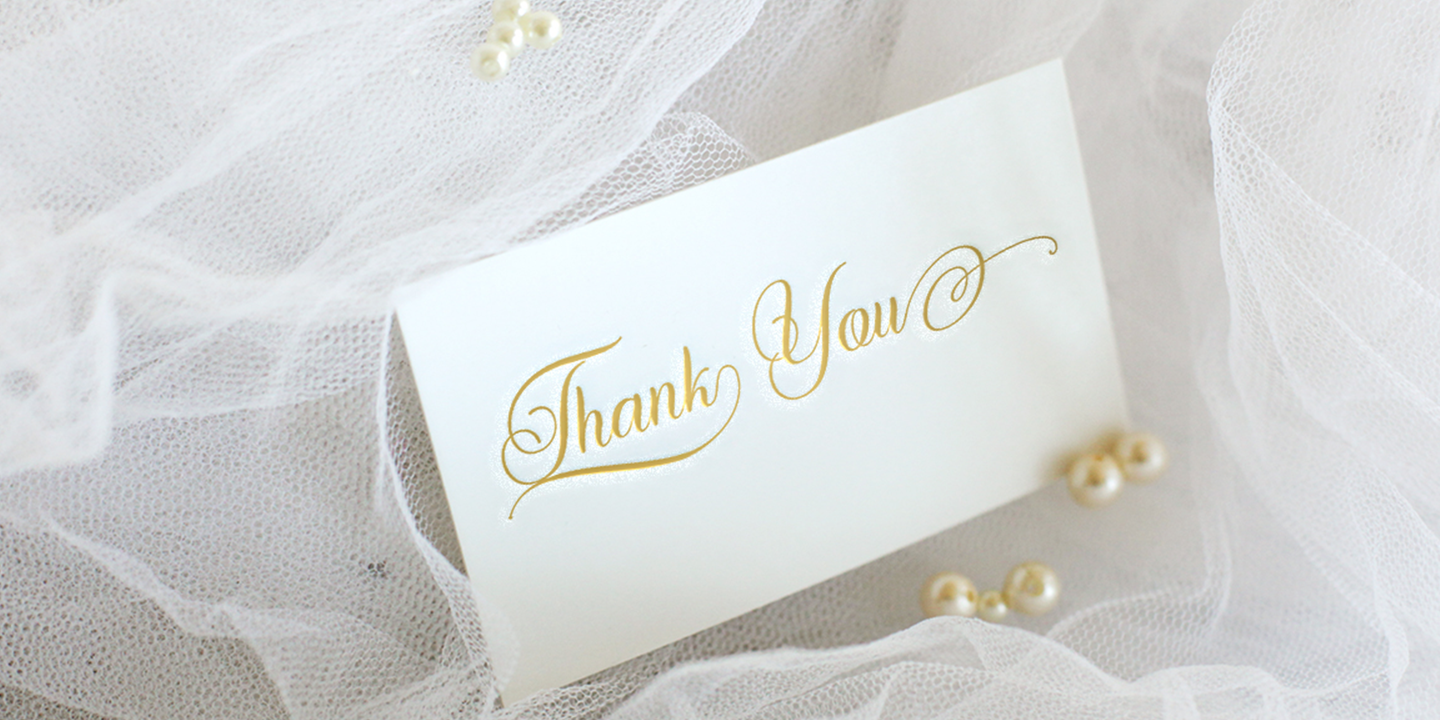
Marchanda Script Font is perfect for elegant wedding invitations, luxury brand signatures, sophisticated restaurant menus, premium packaging design, artisanal product labels, boutique logos, high-end fashion magazines, calligraphy-style greeting cards, and refined corporate branding.
What makes Marchanda Script Font exciting is its sophisticated elegance and flowing grace that perfectly captures the essence of traditional calligraphy with contemporary refinement. This exquisite typeface features fluid, connected letterforms with natural rhythm that evoke feelings of luxury, craftsmanship, and timeless sophistication. The font's handcrafted character makes it ideal for brands seeking to communicate exclusivity, personal attention, and artisanal quality through beautiful, human-centered typography.
Marchanda Script Font family includes multiple refined variations: Regular, Bold, Light, Medium, Condensed, Extended, Flourished, and Decorative versions. The family also features calligraphic alternates, elegant ligatures, decorative swashes, ornamental flourishes, and connecting elements that enhance its sophisticated appeal and typographic versatility.
Elevate your designs with Marchanda Script Font Free Download – a luxurious typography solution that brings handcrafted elegance and sophisticated beauty to every creative project. This versatile font combines calligraphic artistry with professional functionality, making it essential for designers creating premium, emotionally resonant communications that celebrate craftsmanship and refined taste.
The artistic mastery of Marchanda Script Font showcases meticulous attention to calligraphic tradition and contemporary design sensibilities. Each character has been expertly crafted to reflect natural pen flow and human expression while maintaining exceptional readability. The font's graceful proportions create harmonious compositions that appeal to discerning audiences seeking authentic artistry and sophisticated elegance.
Luxury brands and high-end retailers will appreciate Marchanda Script Font's ability to communicate exclusivity, craftsmanship, and premium quality. The font's elegant appearance creates packaging and marketing materials that resonate with affluent consumers seeking authentic, artisanal experiences. Its sophisticated character helps establish brand prestige and emotional connections in competitive luxury markets.
Wedding and event industry professionals benefit from Marchanda Script Font's romantic elegance that captures the significance of life's most treasured moments. The font's graceful character enhances invitations, programs, and ceremonial materials while ensuring excellent readability across various applications. Its timeless appeal creates lasting memories for couples and families celebrating special occasions.
Digital platforms showcase Marchanda Script Font's effectiveness in luxury websites, social media campaigns, and mobile applications focused on premium lifestyle content. The font maintains its calligraphic charm across various screen sizes and resolutions, ensuring consistent elegant messaging. Its optimized design provides superior performance in both large displays and detailed text applications.
Fine dining and hospitality establishments find Marchanda Script Font perfect for communicating culinary excellence and exceptional service experiences. The font's sophisticated character enhances menus, signage, and promotional materials that create memorable dining atmospheres. Its refined appeal attracts discerning clientele seeking luxury hospitality and gourmet experiences.
Print materials featuring Marchanda Script Font create stunning results in premium publications, luxury stationery, and high-end marketing collateral. The font's flowing reproduction ensures excellent quality while preserving its handcrafted character. Its elegant appearance enhances perceived value and brand sophistication across various print applications.
Marchanda Script Font represents the perfect harmony of traditional calligraphy and modern functionality, enabling designers to create communications that honor craftsmanship, celebrate elegance, and establish authentic connections with audiences who appreciate timeless beauty and sophisticated design excellence.